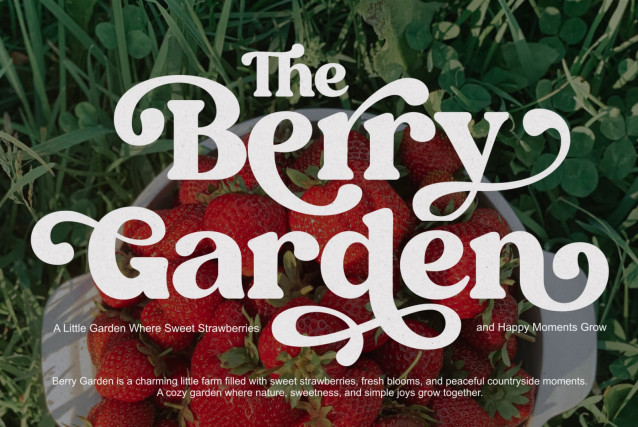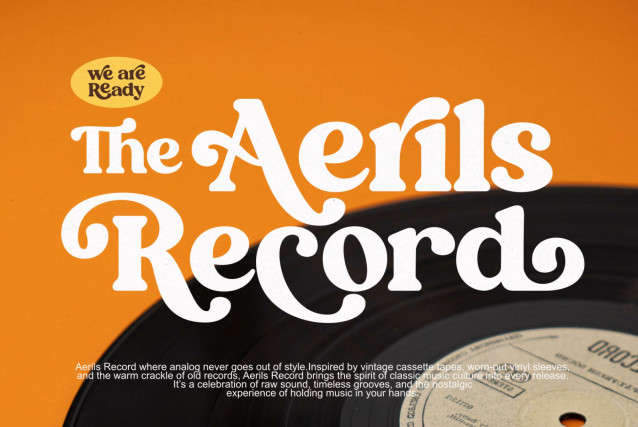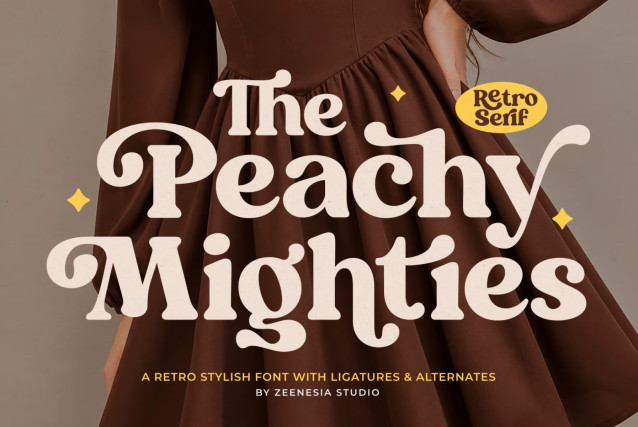
Peachy Mighties Font
Peachy Mighties is a bold and playful retro display font inspired by vintage typography and groovy aesthetics. Its chunky, curvy letterforms create a fun, stylish, and nostalgic personality, making every word stand out.
Designed with unique ligatures and stylistic alternates, Peachy Mighties gives you plenty of options to create expressive and eye-catching typography.
Peachy Mighties — A bold, groovy & playful retro font with ligatures and alternates.